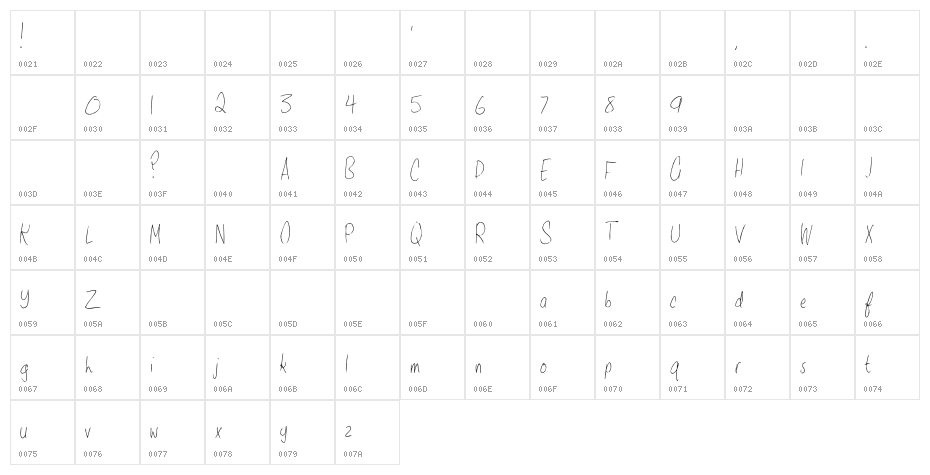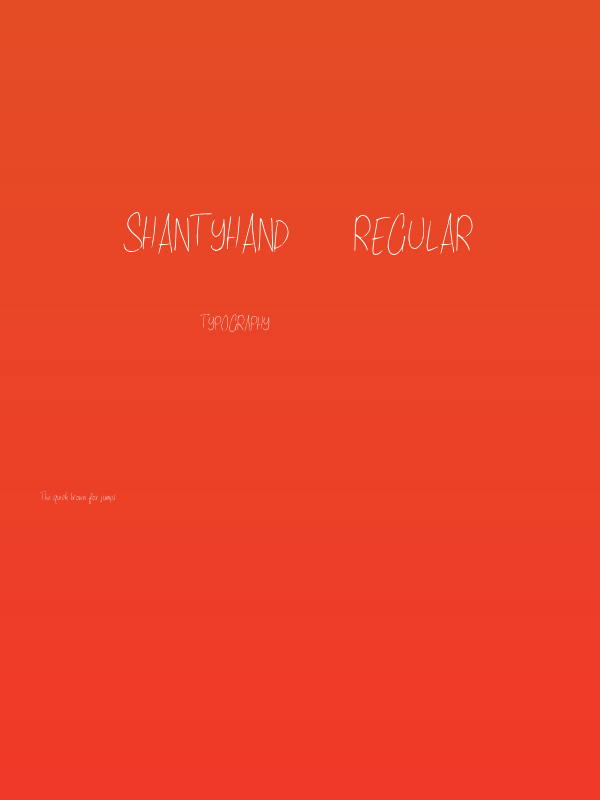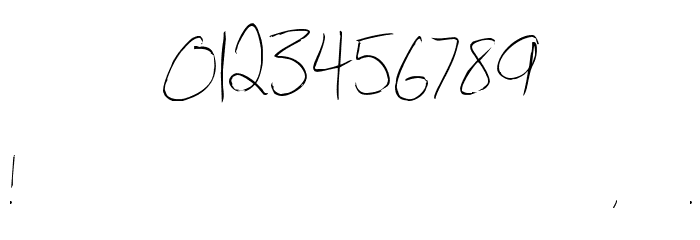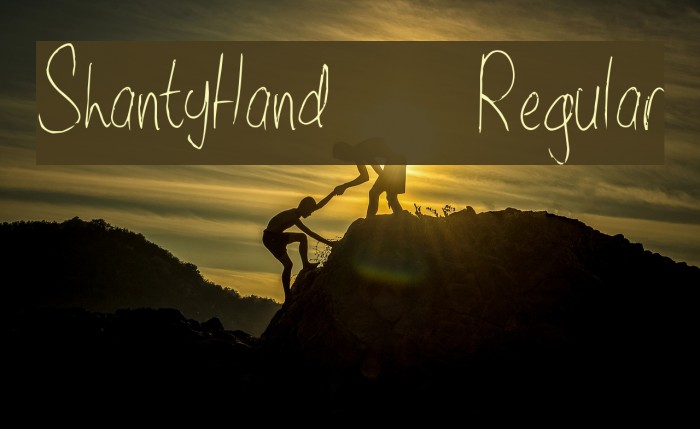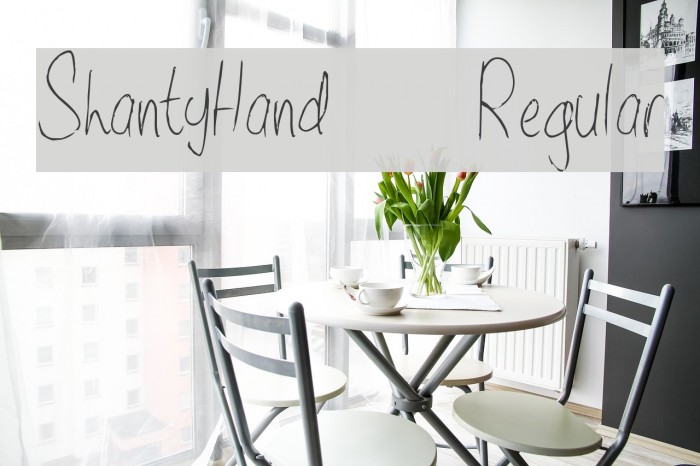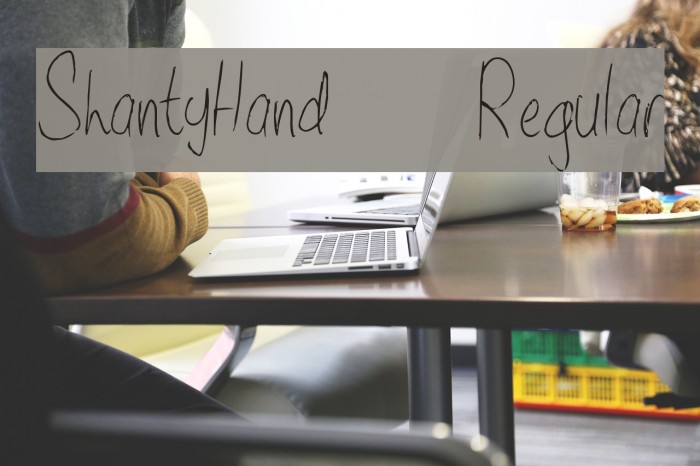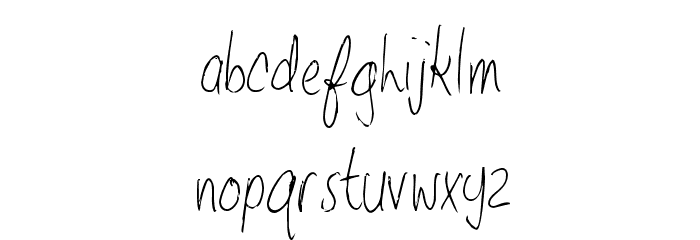
ShantyHand-Regular Font
ShantyHand-Regular Description
This font exudes a casual, handwritten style that mimics the fluidity and spontaneity of natural handwriting. The characters are slightly slanted, giving them a dynamic and informal appearance. Each letter is crafted with a thin, consistent stroke, maintaining a uniform line weight throughout. The uppercase letters are tall and narrow, while the lowercase letters are more rounded and open, creating a pleasant contrast. The numbers follow the same style, ensuring consistency across all characters. This font is perfect for projects that require a personal touch, such as invitations, greeting cards, or casual branding.
| Use Case | Invitations, Greeting cards, Personal branding |
| Proposed Projects | Ideal for invitations, greeting cards, personal branding, and casual design projects. |